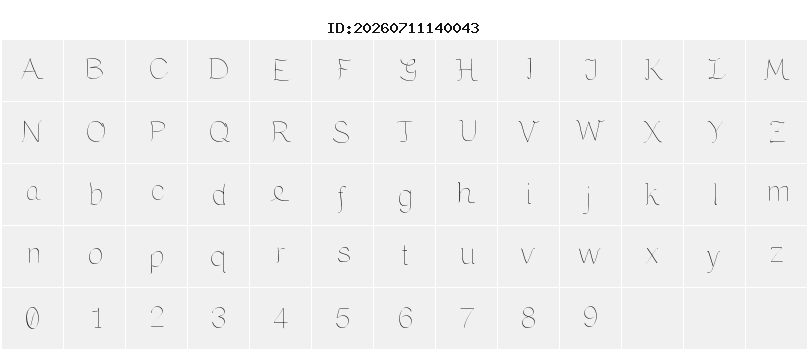
• Font Name: Maria
• Designer: Andrei Olaru
• Manufacturer: Kreativ Font
• Description: Maria font is a slab, sans-serif handwriting type that can be used to give you a pen like writing style for your designs.
Maria.ttf is a modern, elegant sans-serif font designed for ultimate readability and visual harmony. Perfect for branding, headlines, web design, and print materials.